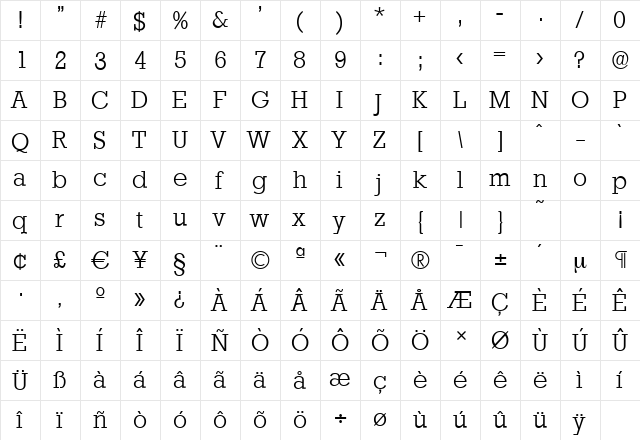
StaffordSerial-Light Regular
Foundry SoftMaker Software GmbH
DesignerSoftMaker Software GmbH
Design Context for StaffordSerial-Light Typeface
StaffordSerial-Light takes a measured approach to typography — its balanced proportions and neutral character make it a reliable workhorse for both digital and print work. The delicate stroke weight brings airiness and refinement to layouts.